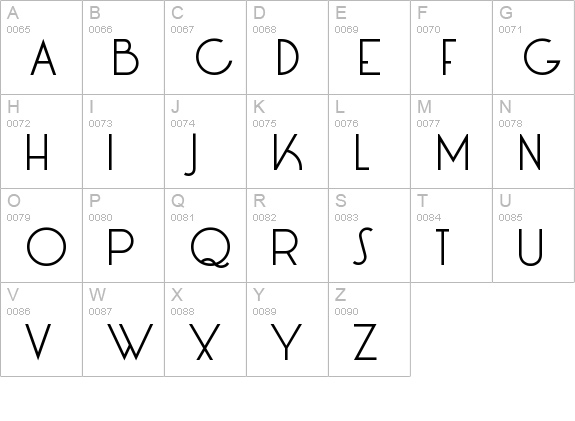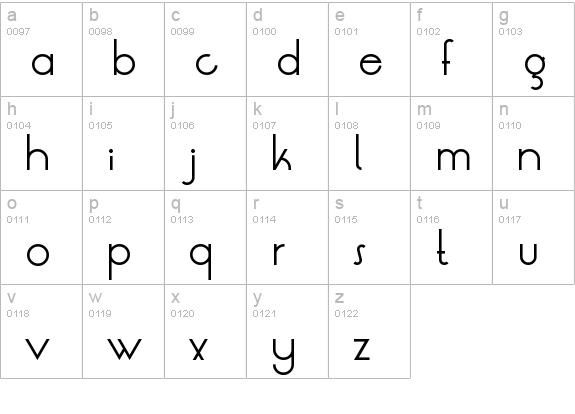
LT Oksana Font Details
LT Oksana is a free for personal use font in the Modern > Geometric category. It has been downloaded 133 times and is available for Windows, Mac and Linux.
Introducing LT Oksana, a beautifully crafted font that combines elegance and versatility, making it the perfect choice for a wide range of design projects. Whether you're creating a sophisticated logo, designing an eye-catching poster, or crafting a stunning invitation, LT Oksana will effortlessly elevate your creations to new heights. With its graceful curves and refined letterforms, LT Oksana exudes a timeless charm that is sure to captivate your audience. Its delicate strokes and balanced proportions create a sense of harmony and balance, making it a truly versatile typeface that can adapt to any design concept. What makes LT Oksana even more remarkable is that it is available free of charge. Yes, you read that right – this exceptional font can be downloaded for free at FontsMarket.com. This means that you can enjoy all the benefits of LT Oksana without any cost, making it an invaluable asset for both professional designers and hobbyists alike. But don't let its affordability fool you – LT Oksana is a high-quality font that delivers exceptional results. Its flawless execution ensures that each character is rendered with precision and clarity, ensuring legibility across various media and sizes. Whether you're working on print or digital projects, LT Oksana will deliver outstanding performance every time. So why wait? Discover the beauty and versatility of LT Oksana today. Download it for free at FontsMarket.com and unlock a world of creative possibilities. With LT Oksana by your side, you can create stunning designs that leave a lasting impression.